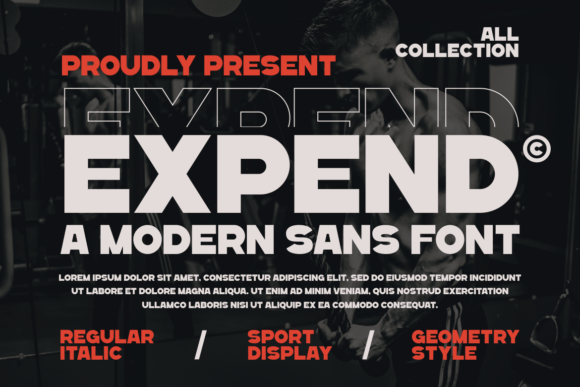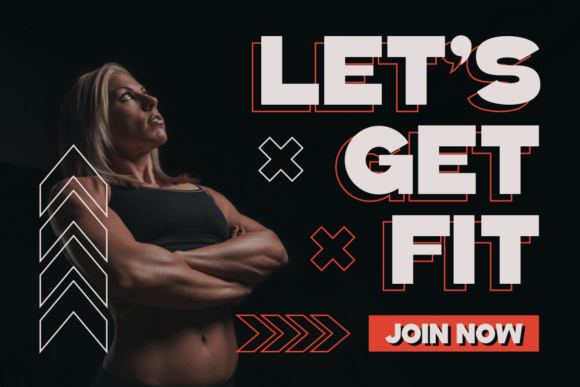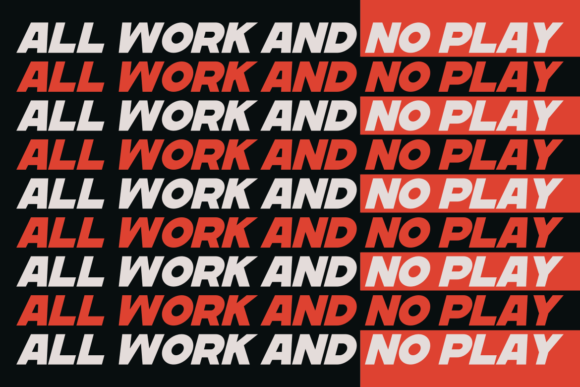
Expend Font: Modern Sans Serif for Bold Headlines & Logo Design
About the Expend Font
Let us introduce you to Expend Font, where timeless design meets modern craftsmanship. EXPEND is a sleek and modern sans-serif font that effortlessly combines style and simplicity. With clean lines and a contemporary vibe, it’s perfect for giving your designs a fresh and polished look. Whether you’re working on branding, headlines, or any project that demands a modern aesthetic, EXPEND delivers a crisp and professional feel. Elevate your typography with this versatile font that brings a touch of sophistication to every design.
EXPEND excels in headlines, logos, and short-form text applications such as posters and packaging where its clean lines and modern aesthetic shine. Its crispness makes it ideal for branding projects requiring a sophisticated and contemporary feel. However, its minimalist nature means it’s less suitable for body text or lengthy paragraphs; legibility suffers at smaller sizes.
For effective pairings, consider pairing EXPEND with a warm serif like Playfair Display for a classic yet modern contrast, or a geometric sans-serif like Futura for a cohesive, streamlined look. A playful script like Pacifico could add a touch of personality to a logo or headline using EXPEND.
EXPEND projects a bold and confident personality, making it perfect for brands aiming for a professional yet approachable image. Avoid using it in contexts requiring a softer or more delicate aesthetic.